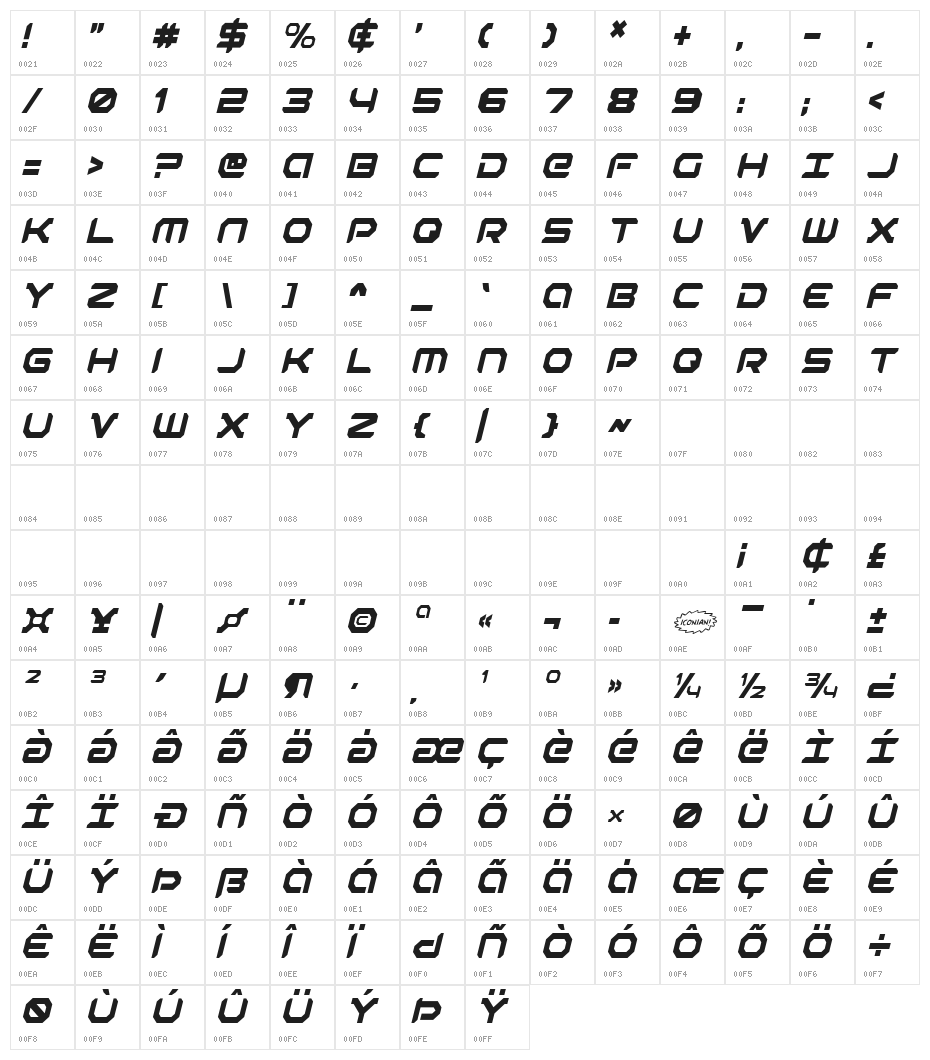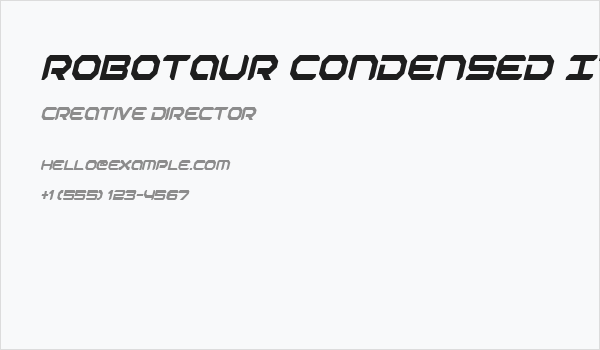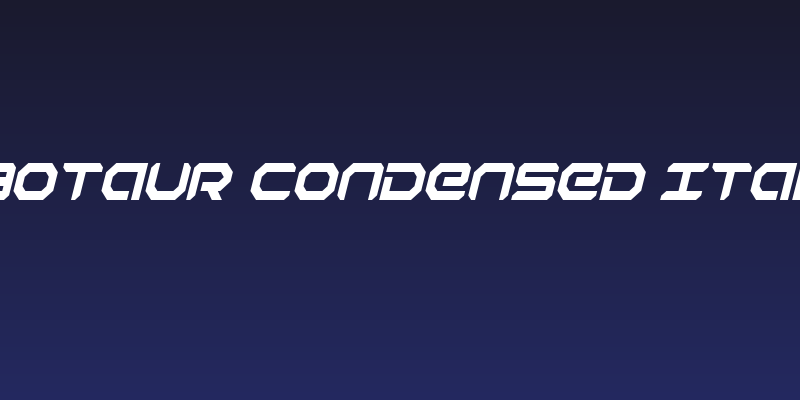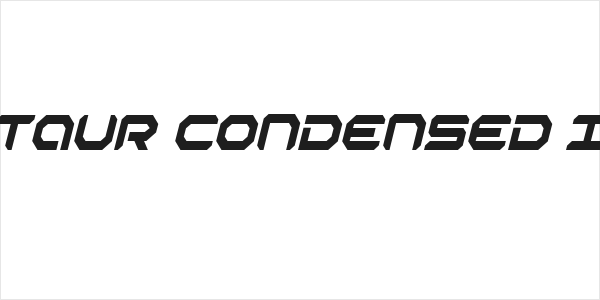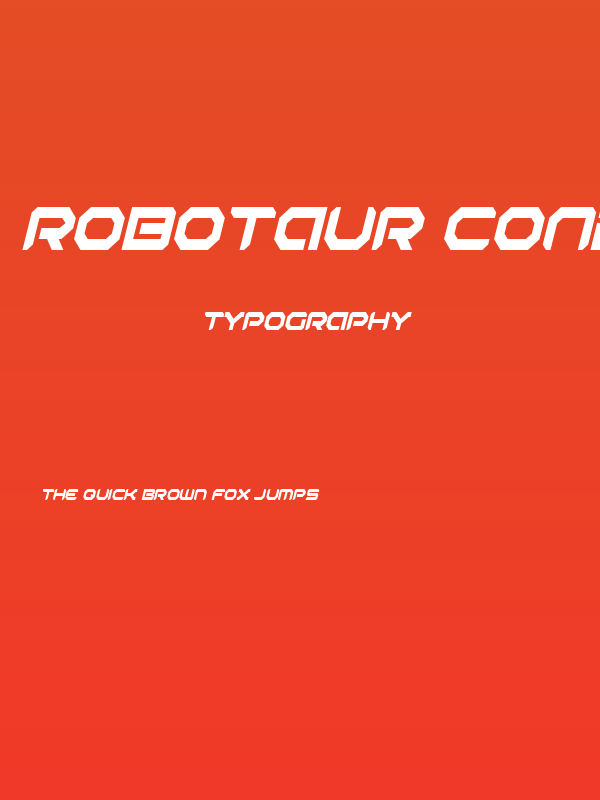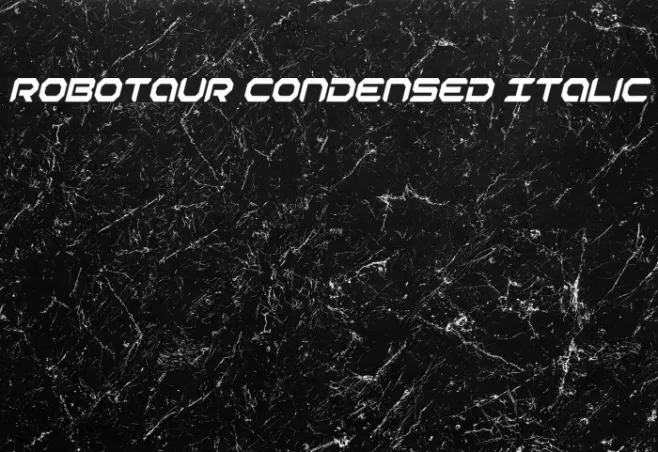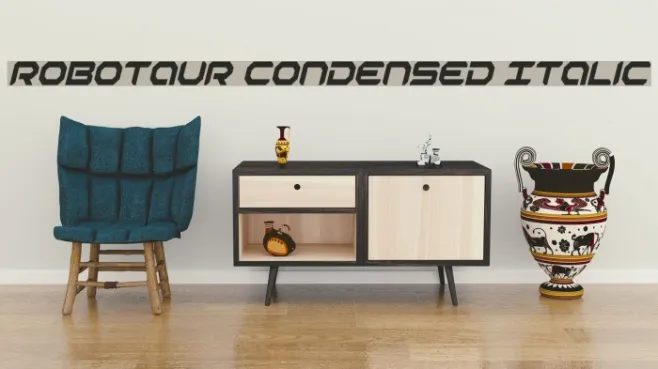
Robotaur Condensed Italic Font
Robotaur Condensed Italic Description
This font exhibits a futuristic and angular design, characterized by its sharp edges and geometric shapes. The letters are condensed and italicized, giving a sense of motion and speed. The uppercase and lowercase characters maintain a consistent style, with a bold presence that makes them stand out. The numerals and special characters follow the same design principles, ensuring uniformity across all glyphs. The font's unique style is ideal for projects that require a modern and dynamic appearance.
| Proposed Projects | Ideal for sci-fi themed designs, technology branding, video game titles, and futuristic posters. |